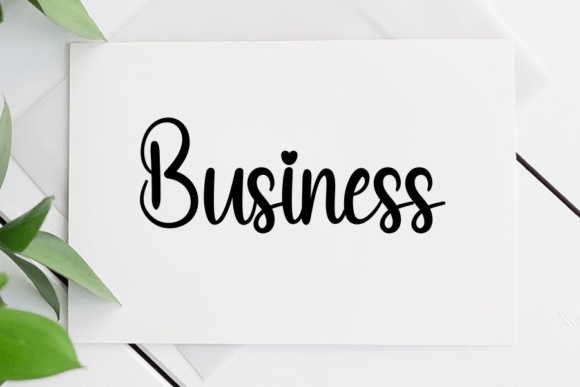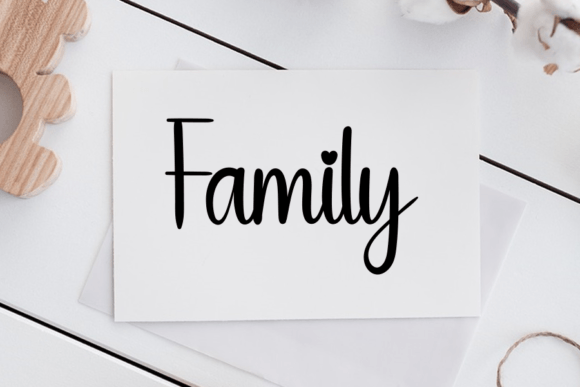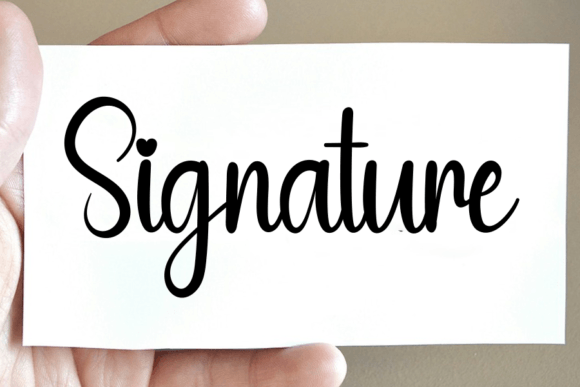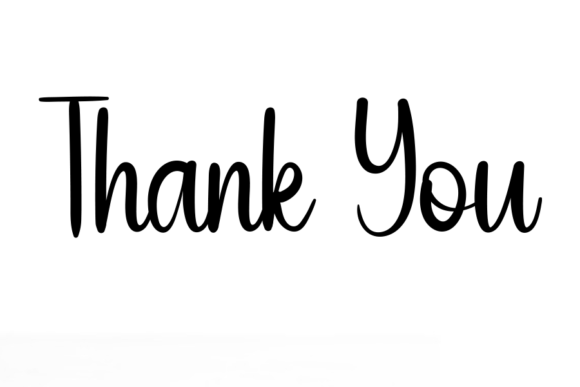
Christmas Font: Adding a Touch of Elegance to Your Designs
Christmas is a time for joy, giving, and celebration. For designers and crafters, it’s also a time to get creative with festive designs that evoke the spirit of the season. One essential element in creating stunning Christmas designs is the font. A Christmas font can add a touch of elegance and charm to your designs, making them perfect for wedding invitations, thank you cards, quotes, greeting cards, logos, business cards, and more.
The Charm of Christmas Font
Christmas feels equally charming and elegant, and the right font can make all the difference. A Christmas font can add a handwritten touch to your designs, making them look more personal and unique. Whether you’re designing for the holiday season or creating a special wedding invitation, a Christmas font can bring a touch of sophistication and glamour to your work.
Uses of Christmas Font
A Christmas font can be used in a variety of designs, including:
- Wedding invitations: Add a touch of elegance and romance to your wedding invitations with a Christmas font.
- Thank you cards: Express your gratitude with a beautifully designed thank you card featuring a Christmas font.
- Quotes: Create stunning quote graphics with a Christmas font that will make your message stand out.
- Greeting cards: Design beautiful greeting cards for the holiday season with a Christmas font.
- Logos: Add a touch of festivity to your logo with a Christmas font.
- Business cards: Create a lasting impression with a business card featuring a Christmas font.
Types of Christmas Fonts
There are many types of Christmas fonts available, ranging from traditional to modern and elegant to playful. Some popular types of Christmas fonts include:
- Script fonts: Perfect for adding a touch of elegance and sophistication to your designs.
- Serif fonts: Great for creating a traditional and classic look.
- Sans-serif fonts: Ideal for a modern and clean design.
- Display fonts: Perfect for headlines and titles, these fonts are designed to grab attention.
Tips for Choosing the Right Christmas Font
With so many Christmas fonts available, choosing the right one can be overwhelming. Here are some tips to help you make the right choice:
- Consider the occasion: Choose a font that fits the occasion, whether it’s a wedding, holiday, or business design.
- Think about the tone: Choose a font that matches the tone of your design, whether it’s formal, informal, elegant, or playful.
- Look at the style: Choose a font that fits your design style, whether it’s modern, traditional, or vintage.
- Check the readability: Make sure the font is easy to read, especially for body text.
Best Practices for Using Christmas Font
Here are some best practices for using Christmas font in your designs:
- Use it sparingly: Use the Christmas font sparingly to avoid overwhelming the design.
- Mix and match: Combine the Christmas font with other fonts to create a unique and interesting design.
- Consider the color: Choose a color that complements the Christmas font and matches the tone of your design.
- Experiment with effects: Add effects such as glitter, snowflakes, or holly to give your design a festive touch.
A Christmas font can add a touch of elegance and charm to your designs, making them perfect for a variety of occasions. Whether you’re a designer or crafter, choosing the right Christmas font can make all the difference in creating stunning designs that evoke the spirit of the season. By considering the occasion, tone, style, and readability, and following best practices for using Christmas font, you can create beautiful designs that will leave a lasting impression.